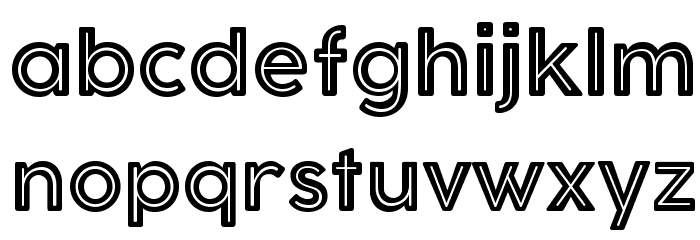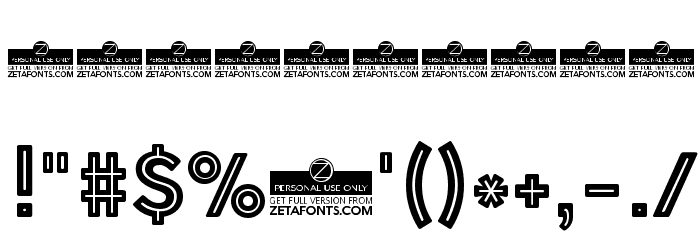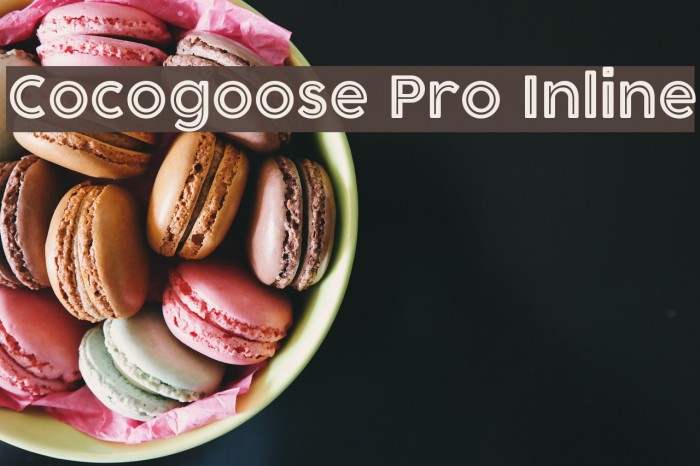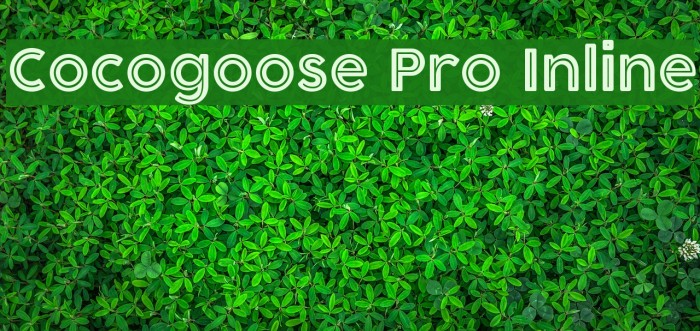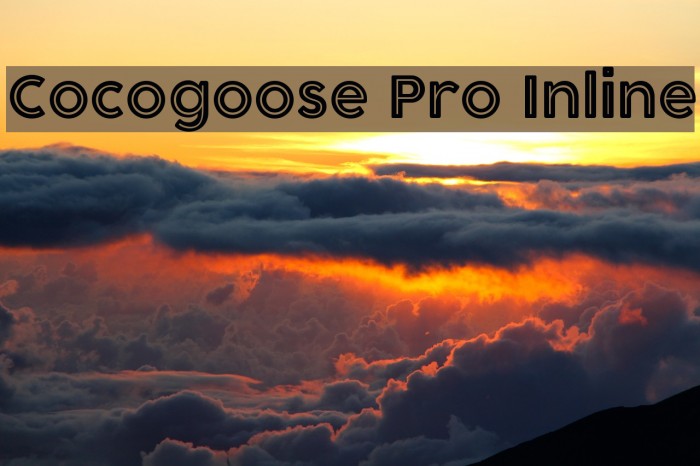
Cocogoose Pro Inline Font
This font features a modern and stylish inline design, characterized by clean and geometric letterforms. The uppercase and lowercase letters maintain a consistent width, creating a balanced and harmonious appearance. The inline style adds a unique touch, making it stand out while remaining legible. The numerals and special characters follow the same design principles, ensuring uniformity across all glyphs. This font is suitable for various design projects that require a contemporary and eye-catching typeface.
A modern inline font with geometric letterforms and consistent width.
- Proposed Projects: Ideal for branding, headlines, posters, and digital media where a modern and distinctive look is desired.